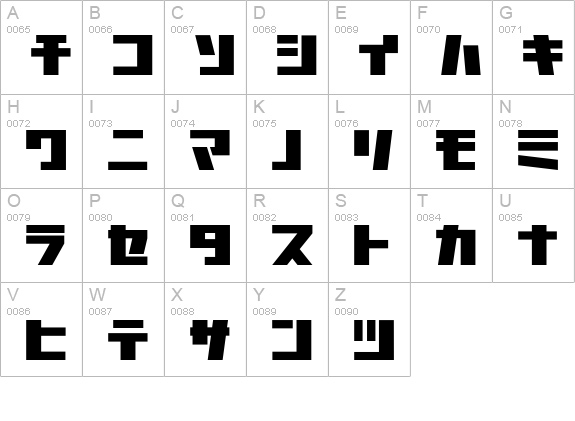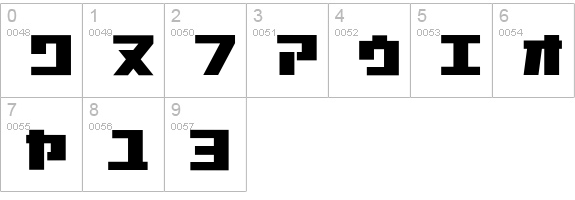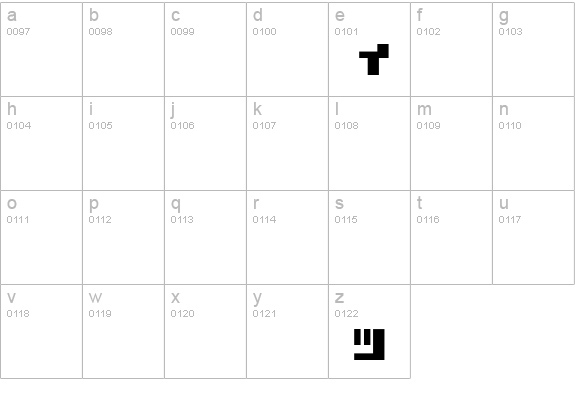
Astro-Bold is a strong, high-contrast variant in the Astro typeface family \xE2\x80\x94 well suited to headlines, attention-grabbing titles, and strong calls-to-action.
Astro-Bold font is a striking and modern typeface that exudes confidence and energy. With its bold and dynamic design, Astro-Bold is perfect for making a statement in headlines, posters, and branding projects. Its sleek lines and sharp angles give this font a futuristic and edgy look, making it stand out from the crowd. The best part? Astro-Bold is available for free download at FontsMarket.com. This means that you can elevate your designs with this eye-catching font without breaking the bank. Don't miss out on the opportunity to add Astro-Bold to your font collection and take your projects to the next level. Download it now and let your creativity soar with this powerful and versatile typeface.